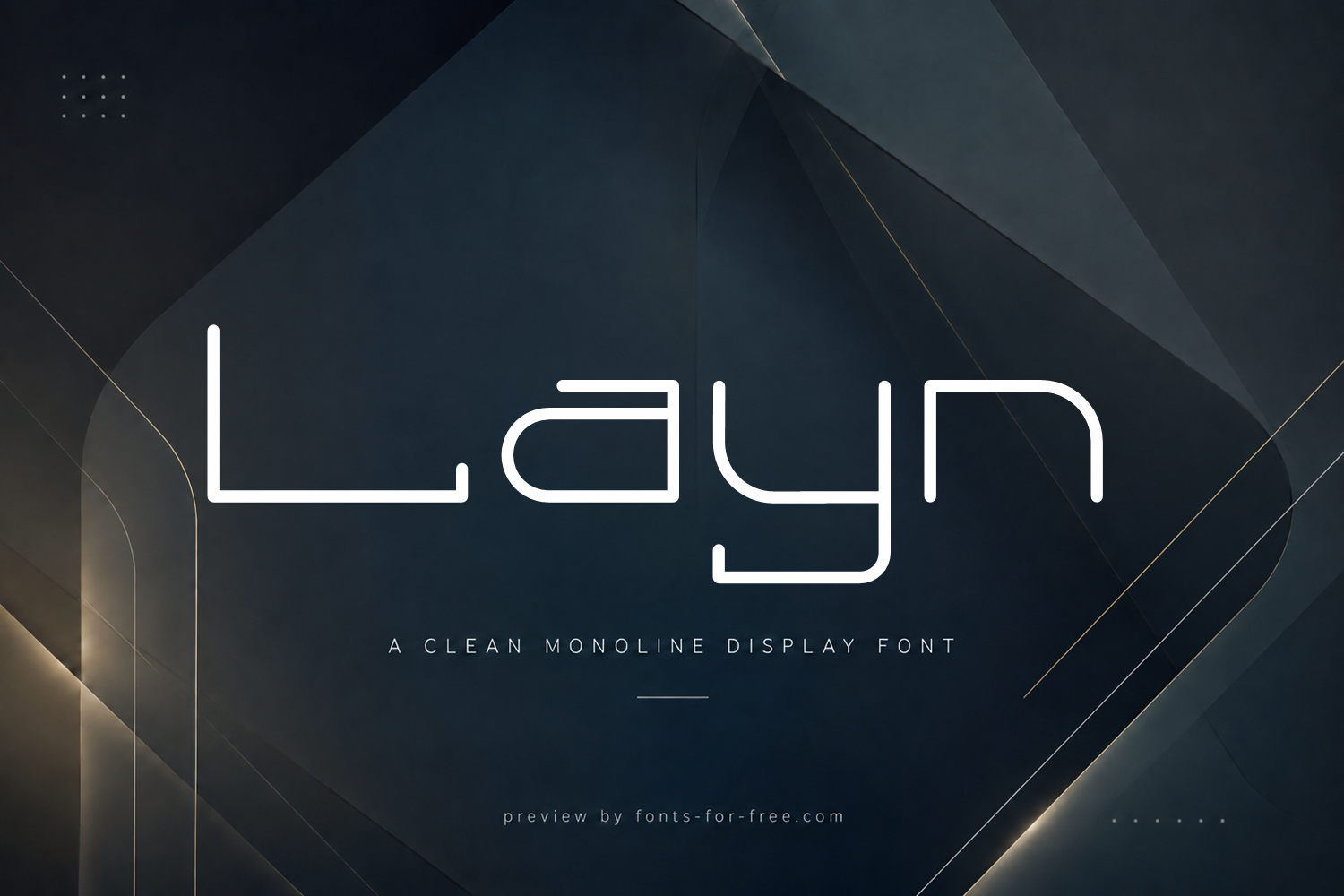
Layn
Layn is a clean monoline display font designed by Christopher Gonzalez, with a geometric sans serif structure and soft rounded terminals. Its letterforms use continuous, open strokes and simplified shapes, giving the typeface a futuristic, minimal, and technical mood. The design has low contrast, wide spacing, and a calm linear rhythm, making it clear at large sizes while less suited to dense body text. Layn fits contexts such as technology branding, modern posters, digital interfaces, album titles, editorial headlines, and minimalist identity work. It is licensed under the SIL Open Font License 1.1.